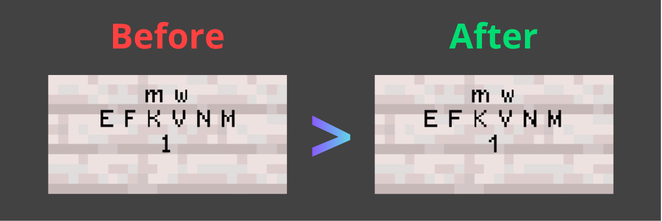
Ginkgo Font
A Cleaner, Vanilla-like Font for Minecraft - Part of the Ginkgo series
Ginkgo Font v1.5
Updated to version 1.5
Altered the letters "m w" , "E F K V N M"